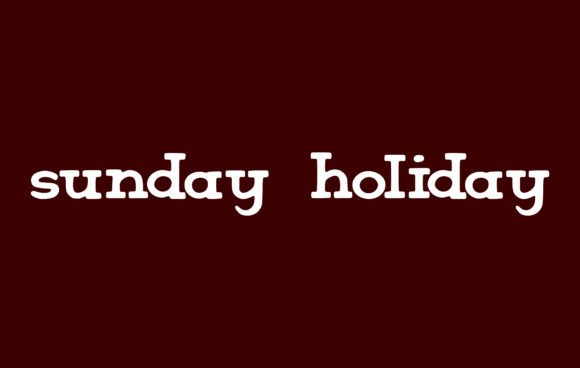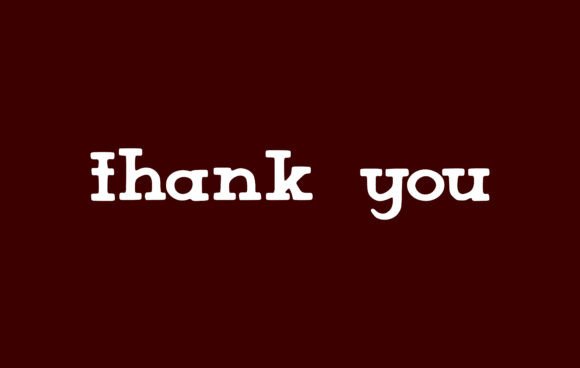
Introduction to New Jersey Font
New Jersey font is an authentic font with a romantic touch.
Key Features of New Jersey Font
Why Choose New Jersey Font?
New Jersey Font offers exceptional quality and versatility, making it a valuable addition to your design toolkit. Whether you’re creating for personal projects or commercial use, New Jersey Font delivers professional results.